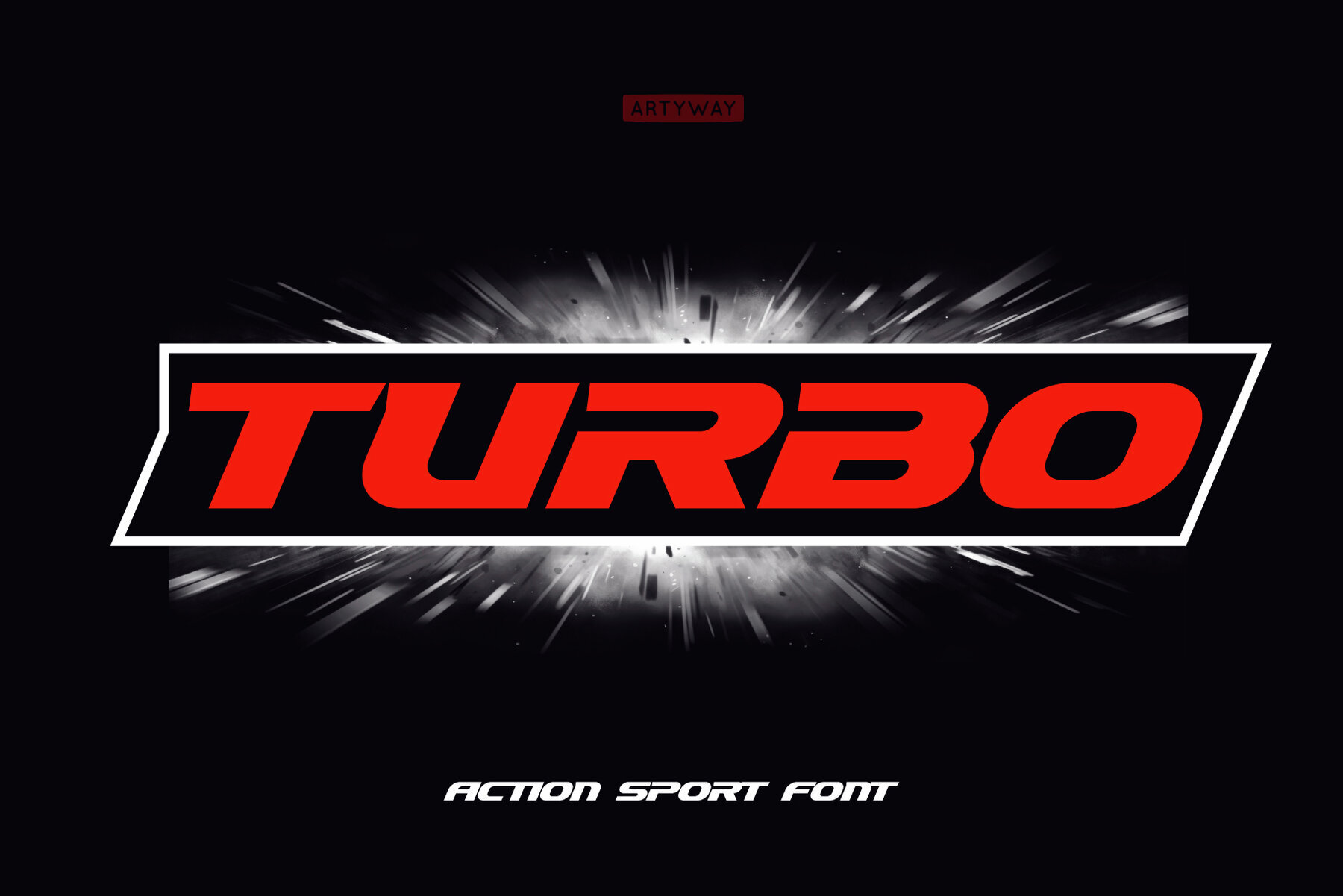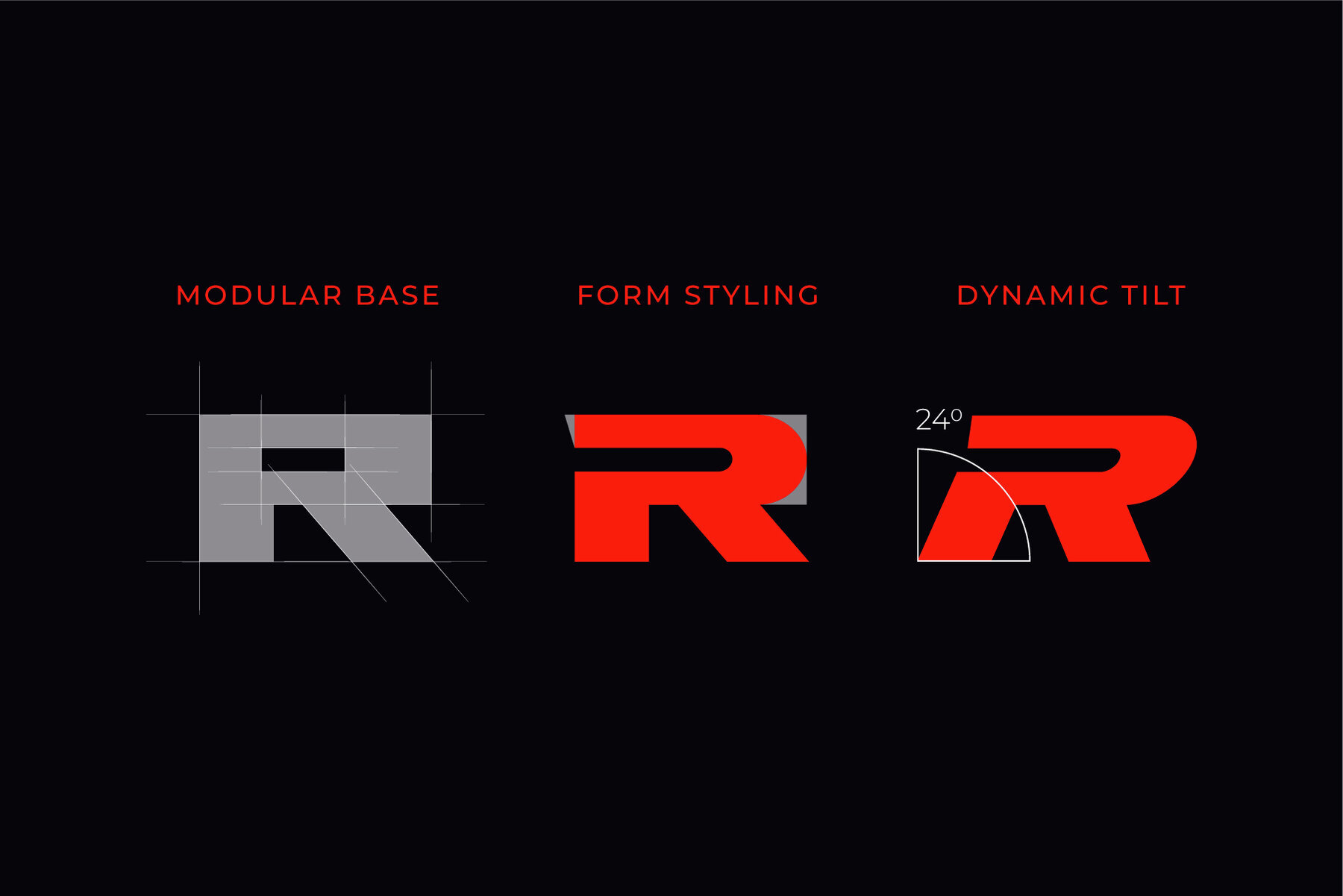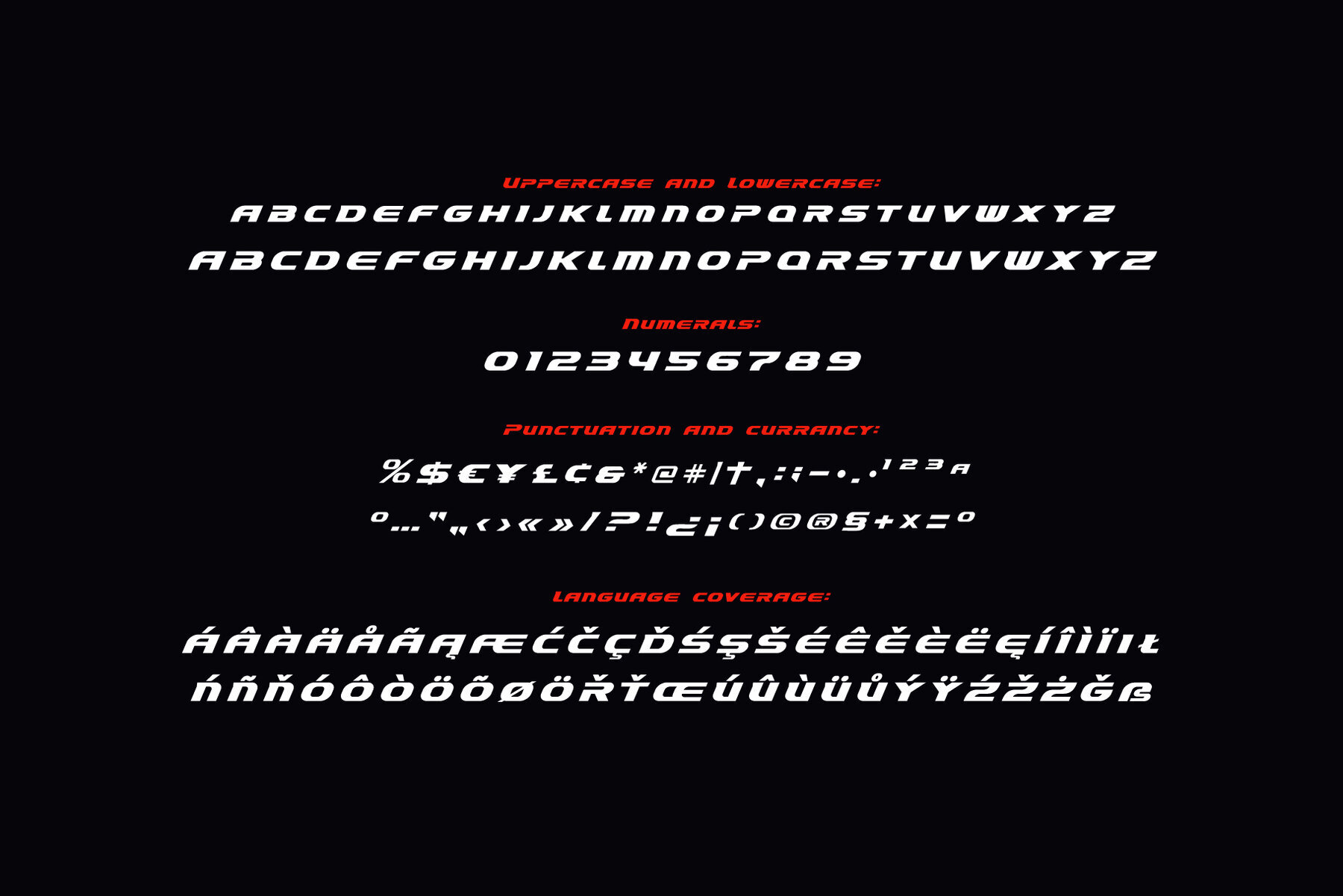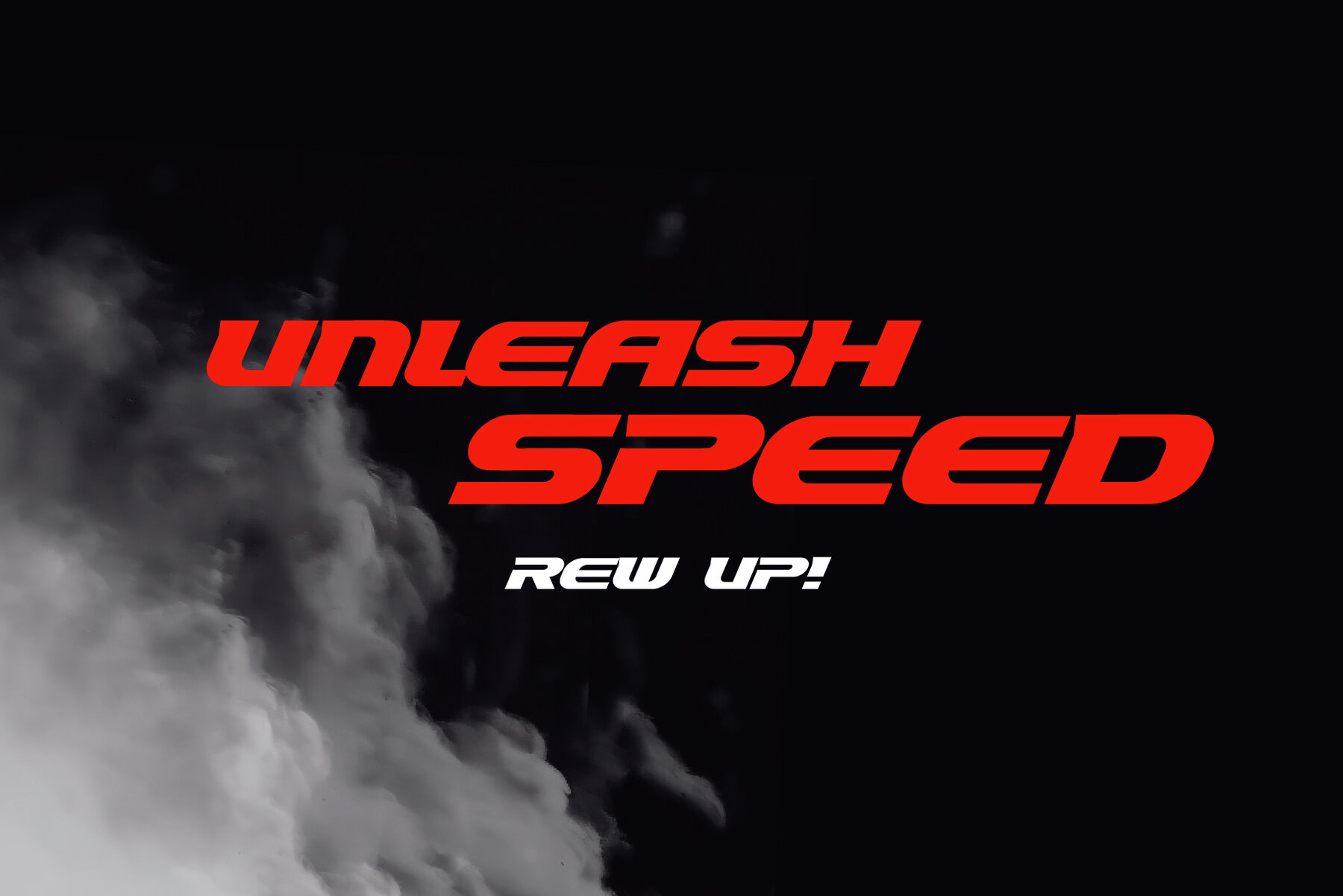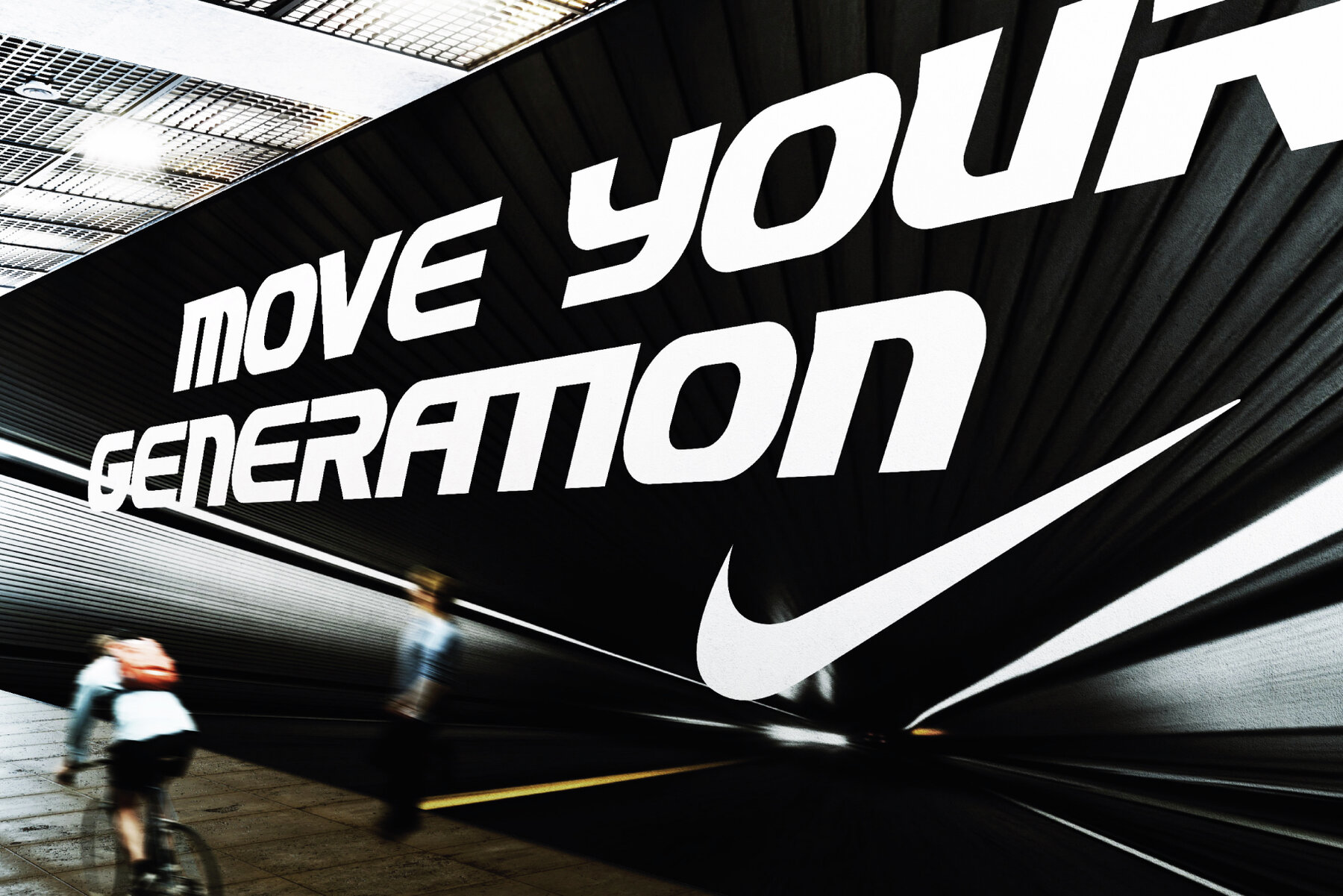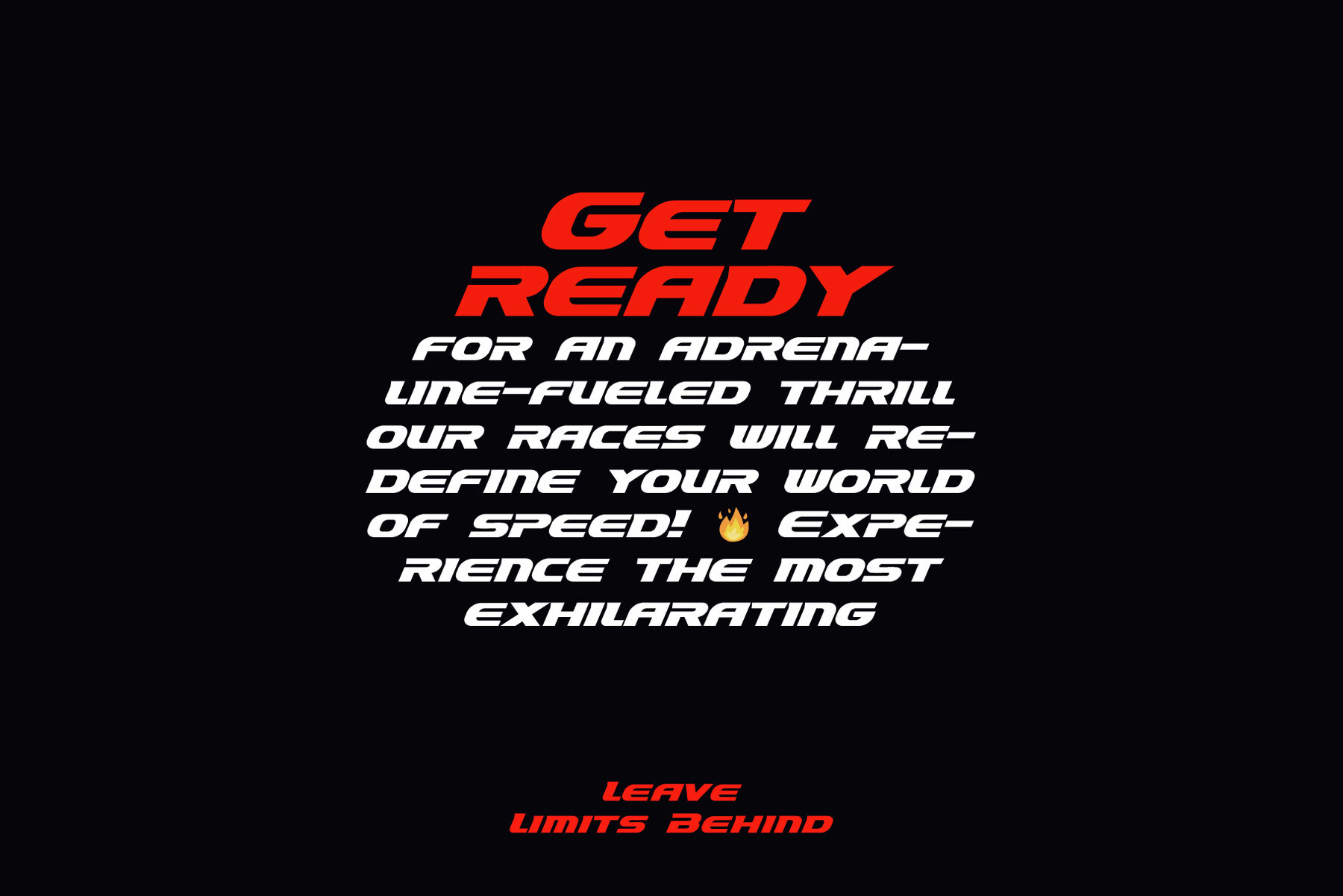
Turbo
Turbo is a striking sport font characterized by its italic wide letters, modern cutouts, and dynamic slant. It's the perfect choice for headlines in speed-related sports events, automotive logos, or any modern dynamic text. Turbo stands out for its impressive readability and massiveness, delivering an impactful sense of power and speed. Inspired by a beloved speed font, Turbo introduces subtle design variations that make it unique. It's perfect for those looking to infuse their projects with energy and movement while maintaining a distinctive aesthetic.Turbo: Dynamic Sport Font with Modern Appeal
Versatile Design